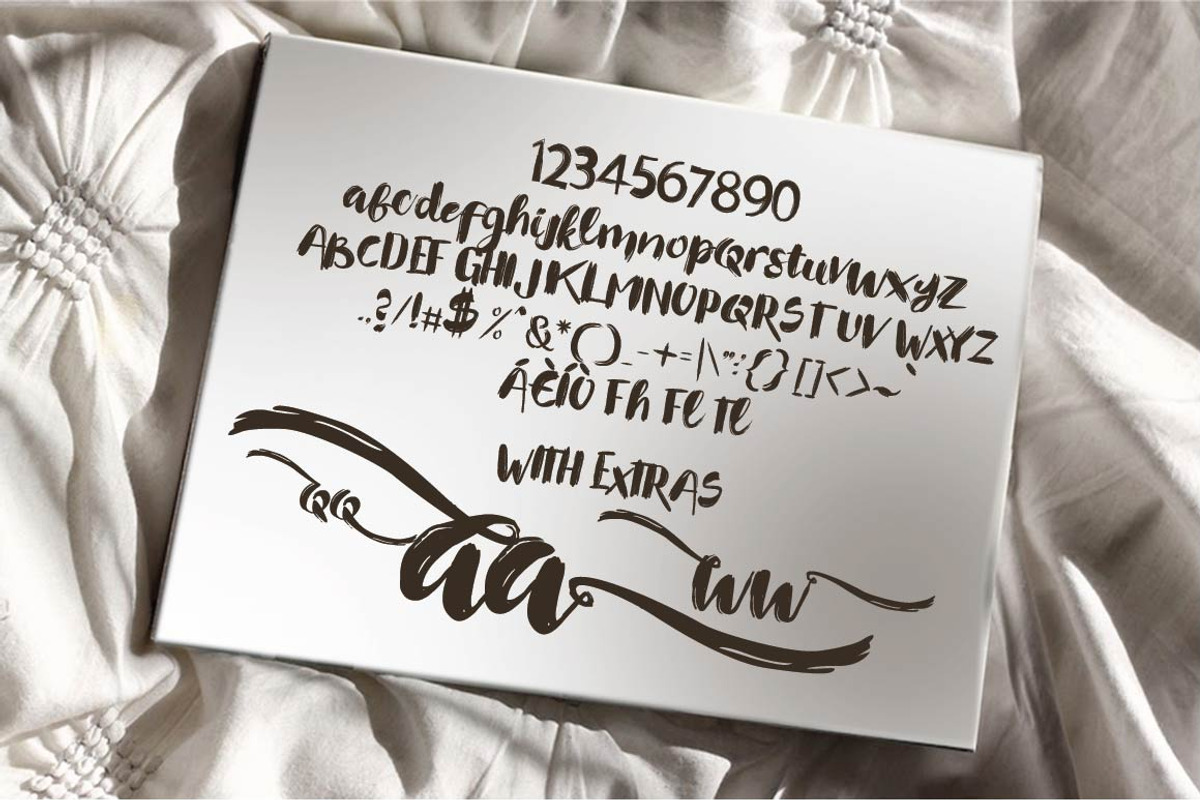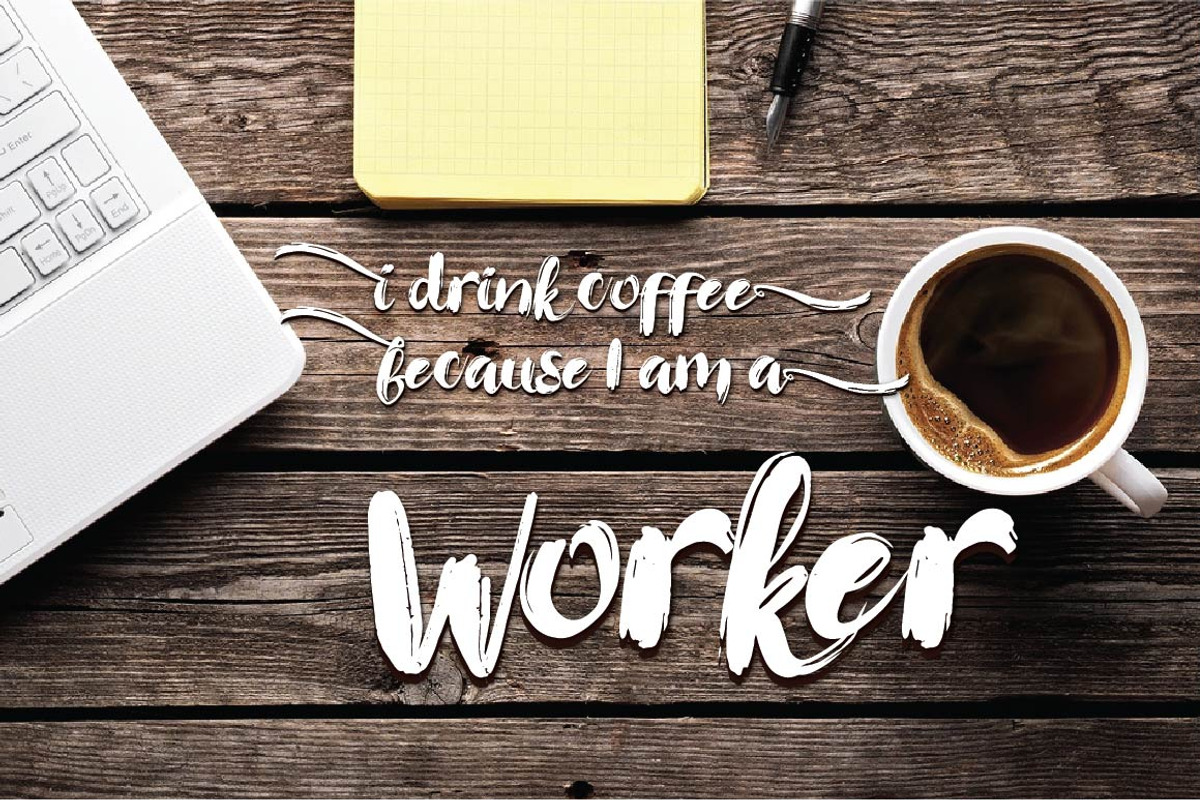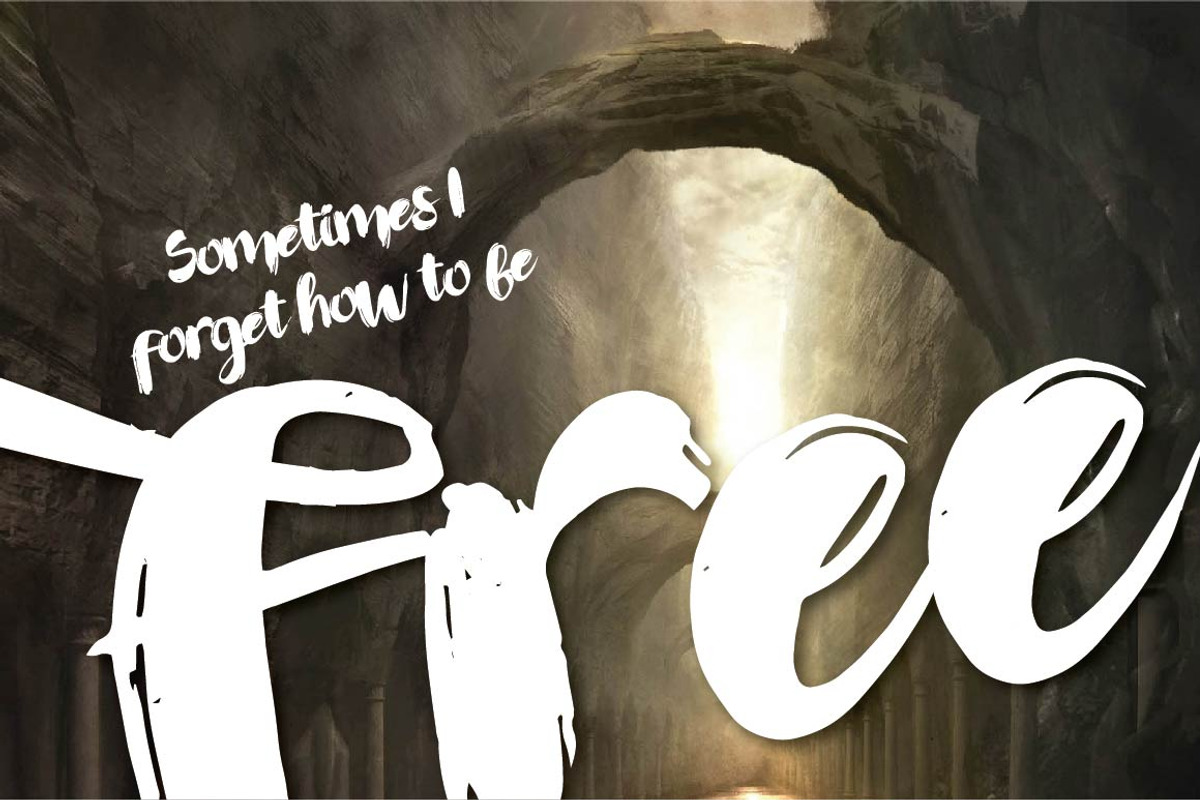
Wendi Typeface
Wendi Typeface by Olexstudio is a font selected for branding, posters, packaging, typography.
- Wendi is a beautiful hand painted script that comes with a set of extras.
- Highly Suitable for a variety of media design , fashion and posters Features Uppercase Lowercase Numerals & Punctuations Accents (Multilingu
Why Wendi Typeface is worth a look
Wendi Typeface by Olexstudio fits naturally into Branding, posters, packaging, typography.